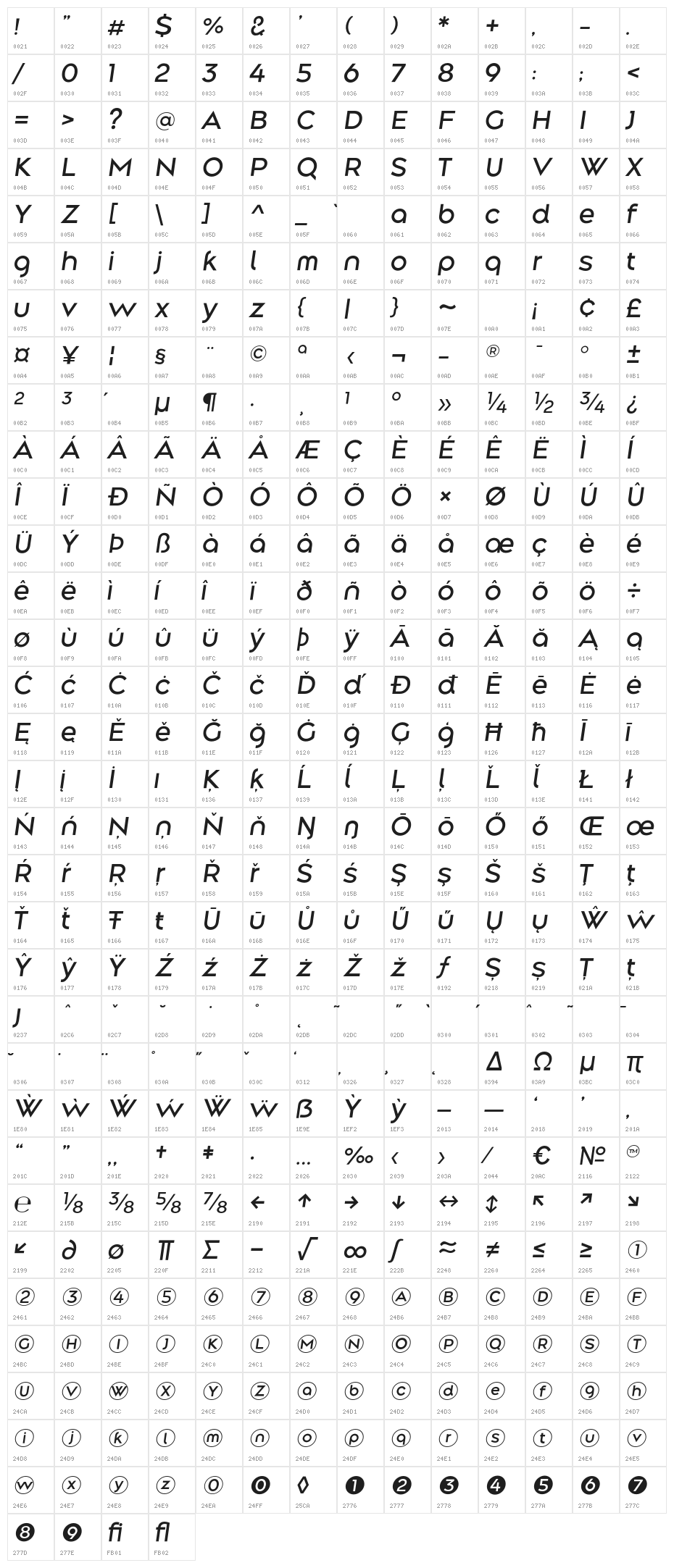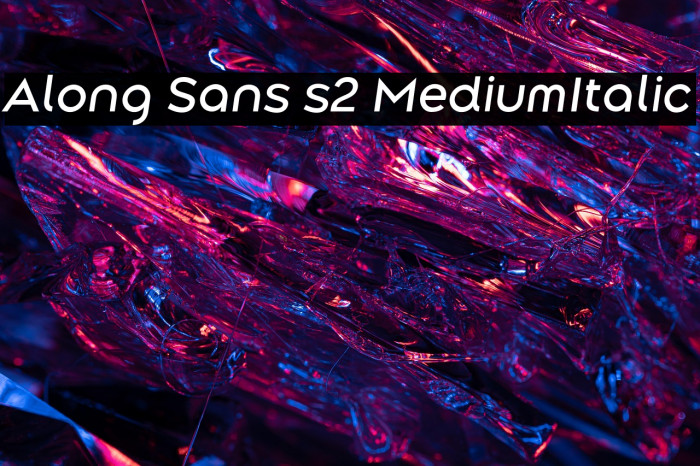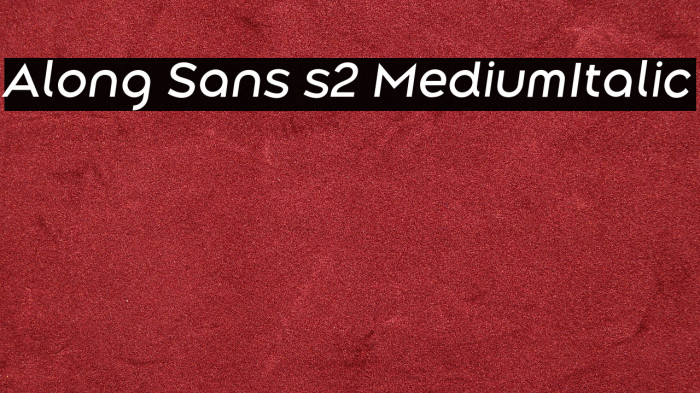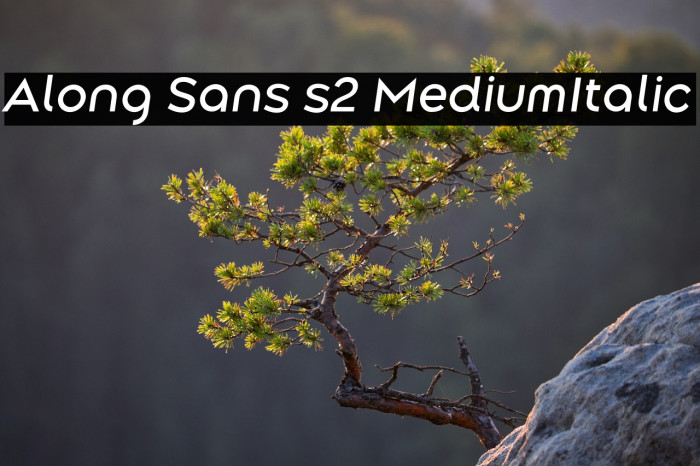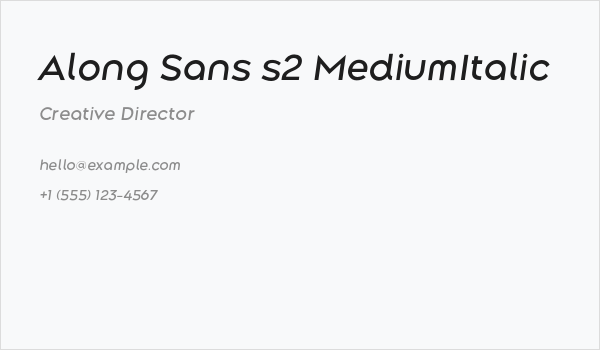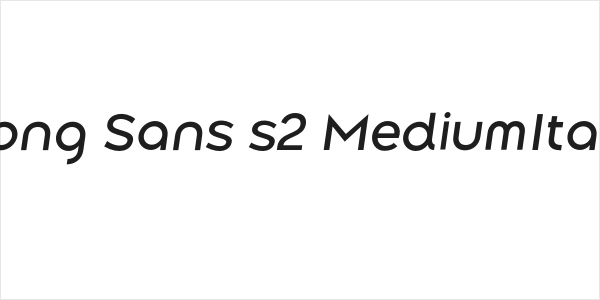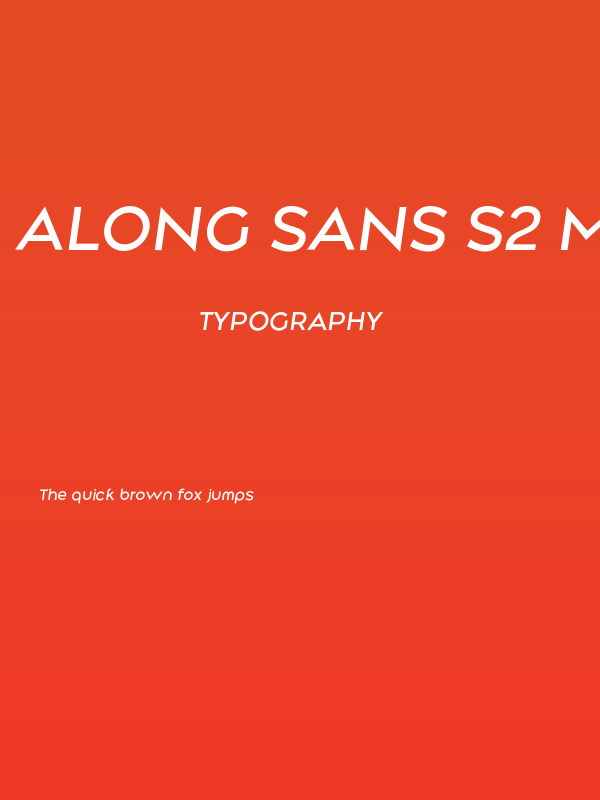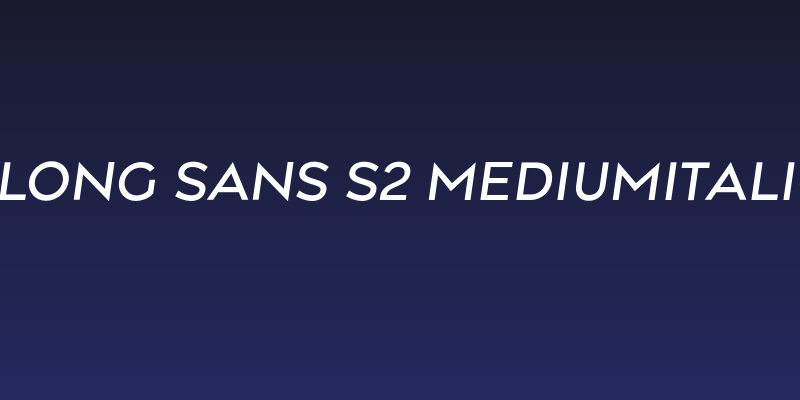
Along Sans s2 MediumItalic Font
Along Sans s2 MediumItalic Description
This font features a sleek, modern design with a slight italic slant, giving it a dynamic and forward-moving appearance. The characters are clean and sans-serif, contributing to a contemporary and professional look. The strokes are consistent in weight, providing a uniform appearance across all characters. The numbers and special characters maintain the same stylistic approach, ensuring cohesion throughout. The font's design is versatile, making it suitable for various applications where clarity and modernity are desired.